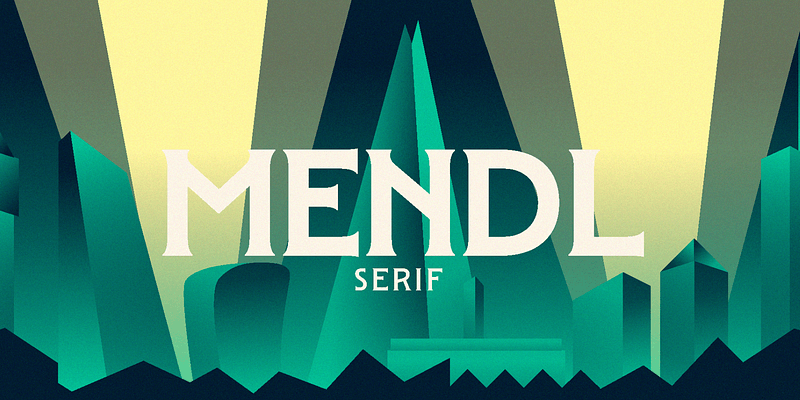
Mendl Serif Font Free Download is an elegant and refined serif typeface, offering a timeless blend of classic and modern design elements. With its high contrast strokes, sophisticated curves, and well-defined serifs, this font is ideal for editorial design, luxury branding, high-end marketing materials, and formal invitations.
Mendl Serif is highly versatile, performing beautifully in both large headlines and smaller body text. It integrates seamlessly with design software such as Adobe Illustrator, InDesign, Canva, and Photoshop, making it easy to incorporate into your creative projects for both print and digital media.